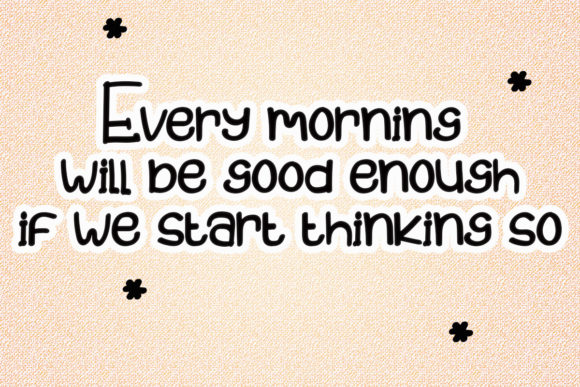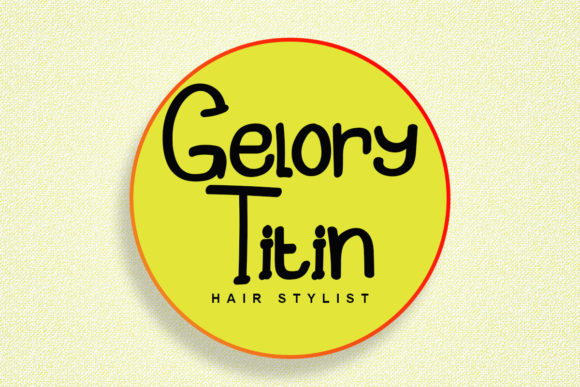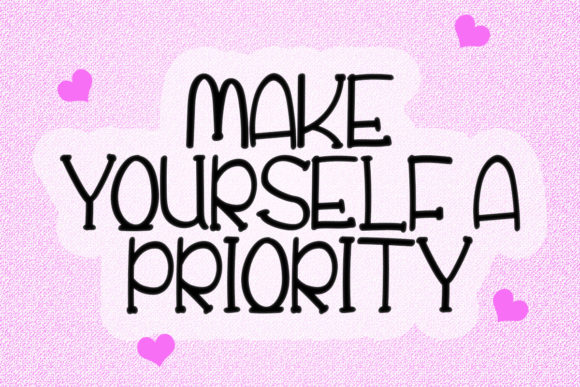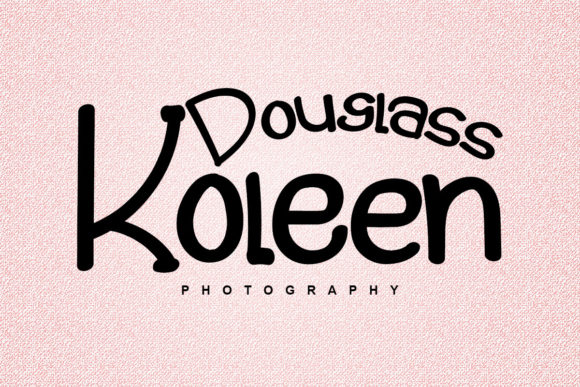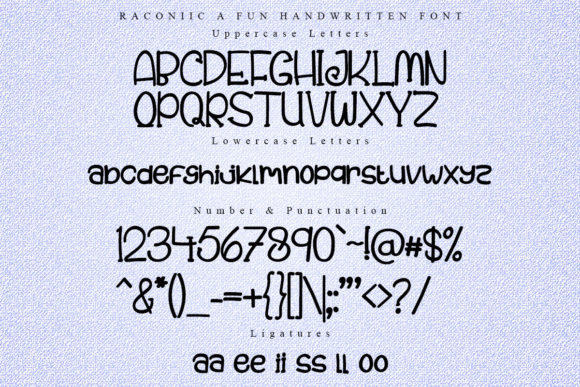
Introduction to Raconiic Font
Raconiic is a cool display that will enhance the beauty of each of your projects.
It is perfect for branding projects, logos, wedding designs, social media posts, advertisements, product packaging, product design, labels, photography, watermarks, invitations, stationery, and other projects that require a lovely taste .
Key Features of Raconiic Font
Why Choose Raconiic Font?
Raconiic Font offers exceptional quality and versatility, making it a valuable addition to your design toolkit. Whether you’re creating for personal projects or commercial use, Raconiic Font delivers professional results.